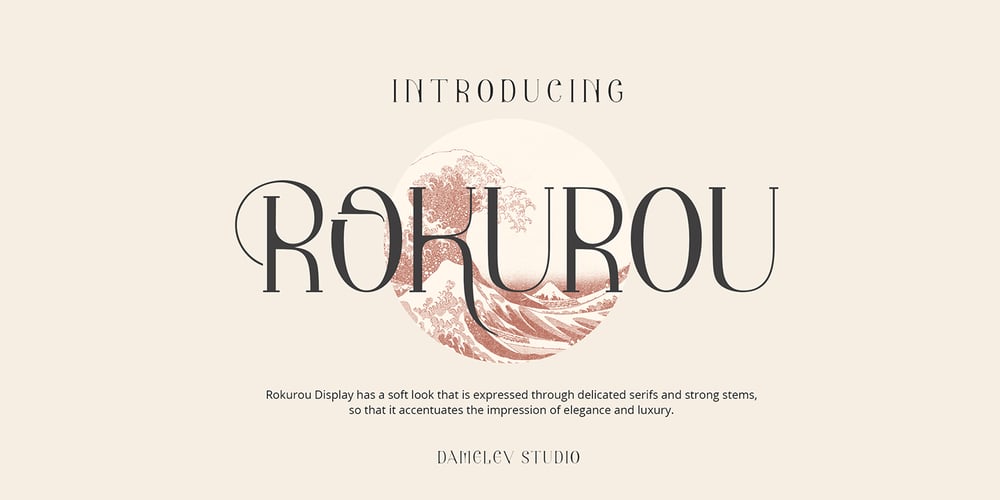
Rokurou Font Family was designed by Tanzil Adduha and published by Tanziladd. Rokurou contains 1 styles and family package options. Rokurou Display has a soft look that is expressed through delicate serifs and strong stems, so that it accentuates the impression of elegance and luxury. Rokurou Display has antique, classic “Roman” proportions. It can be used to set body texts and works well in titles and headlines too.It works perfectly for creative project such as logo, T-shirt / apparel, badge, invitation, packaging,headline, poster, magazine, greeting card, and wedding invitation. You can access the open type features and multilingual on mostly Adobe programs, such as Adobe Indesign, Adobe Illustrator, Adobe photoshop, etc.